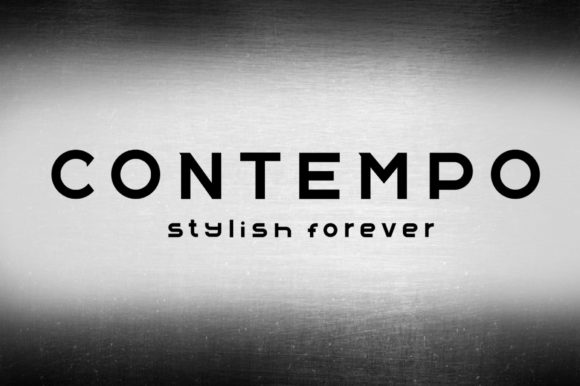
Journey into the world of Contempo Font, a display font that exudes boldness, authenticity, and assertiveness. With its striking presence, Contempo commands attention, making it the perfect choice for designers seeking to leave a lasting impression.
Contempo's versatility extends beyond its captivating appearance. Its adaptability makes it suitable for a wide range of creative endeavors, from web designs and business cards to T-shirt designs and social media graphics. Unleash your creativity and let Contempo elevate your designs to new heights.
Experience the transformative power of Contempo. Its captivating curves and sharp edges create a visual symphony that dances across your screen. Each letterform is meticulously crafted to convey a message of strength and individuality. Embrace the boldness of Contempo and let your designs radiate with自信 and conviction.
Contempo is not just a font; it's a statement of style. Its unique touch breathes life into your designs, setting them apart from the ordinary. Whether you're a seasoned designer or just starting your creative journey, Contempo is the perfect companion to help you make a statement.
With Contempo at your fingertips, you gain access to a world of possibilities. Its versatility allows you to explore endless design avenues, from sleek and sophisticated to playful and whimsical. Let Contempo be your muse, guiding you towards designs that resonate with your audience and leave a lasting impression.
Don't settle for ordinary fonts that blend into the background. Embrace the extraordinary with Contempo. Its bold personality shines through in every letterform, captivating your audience and leaving them wanting more. Make a statement with your designs, and let Contempo be your creative ally.